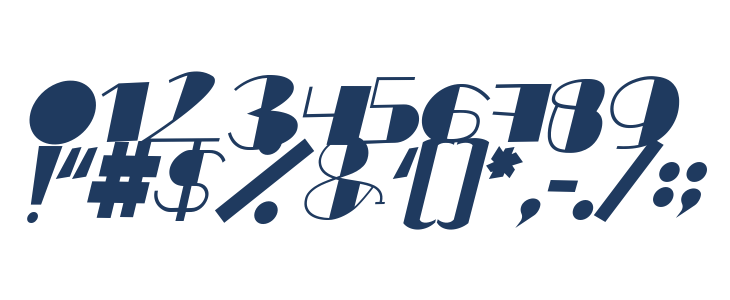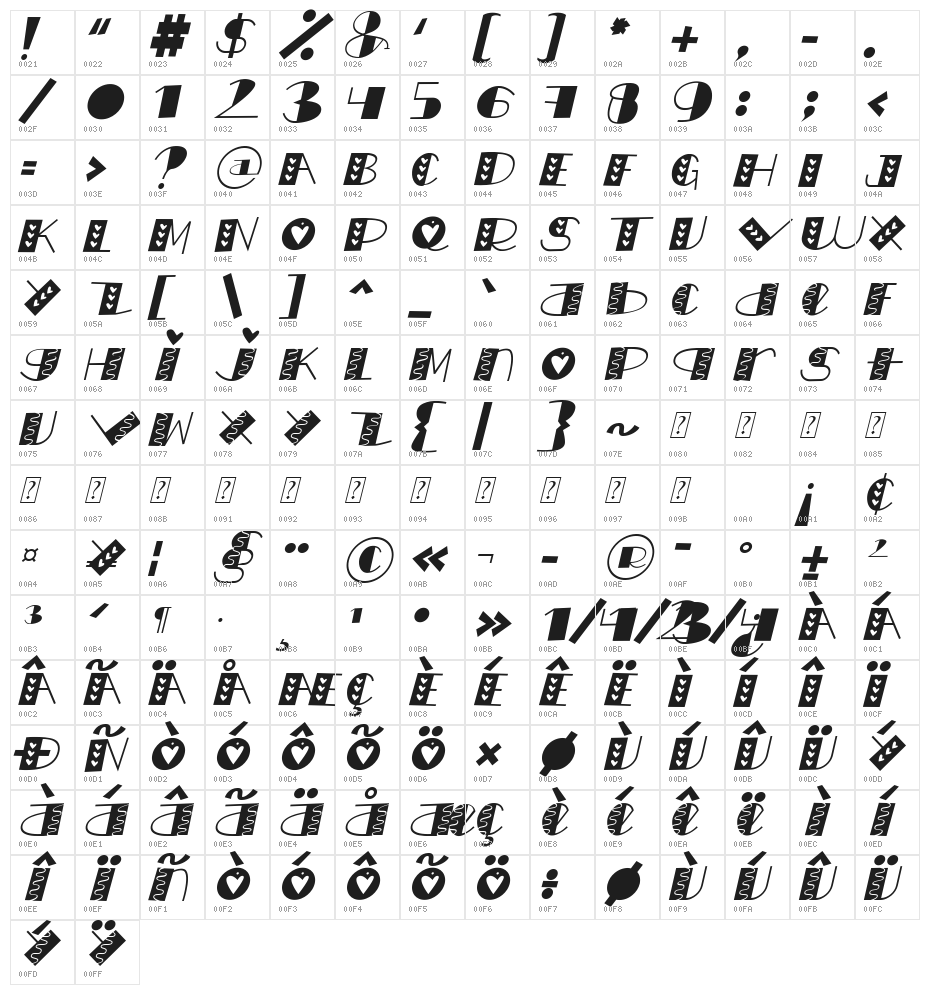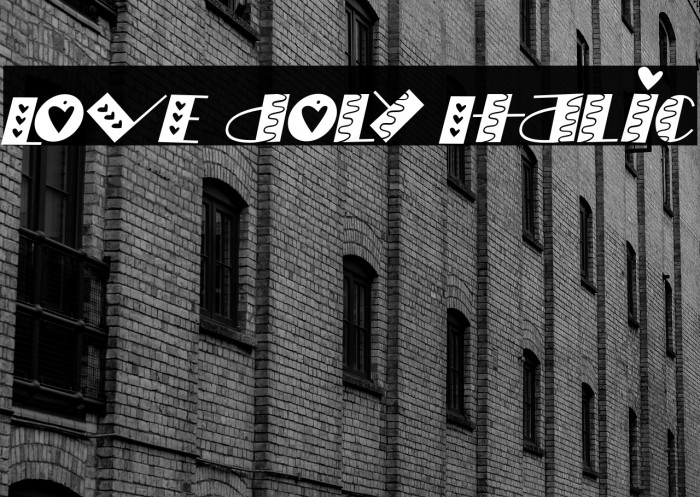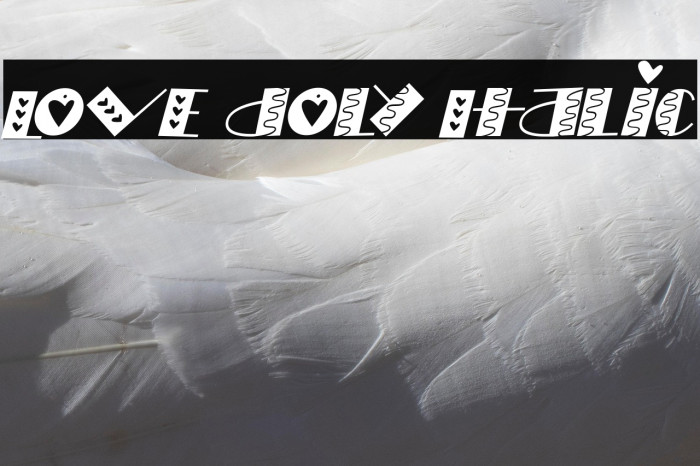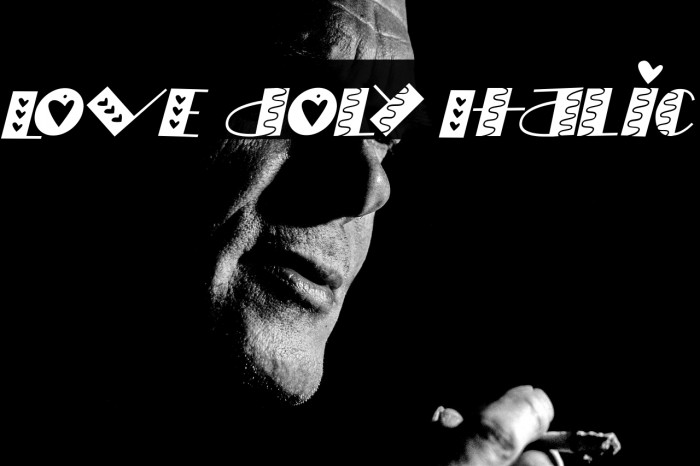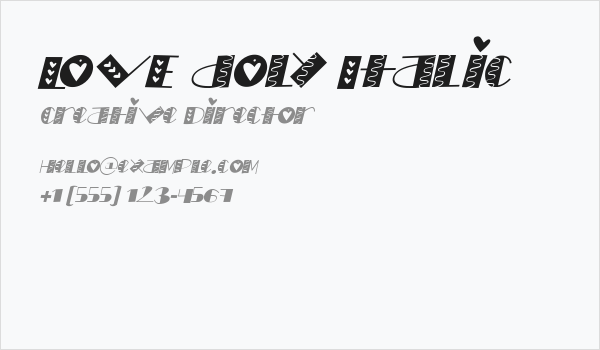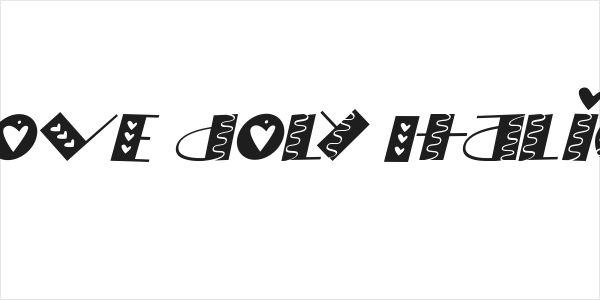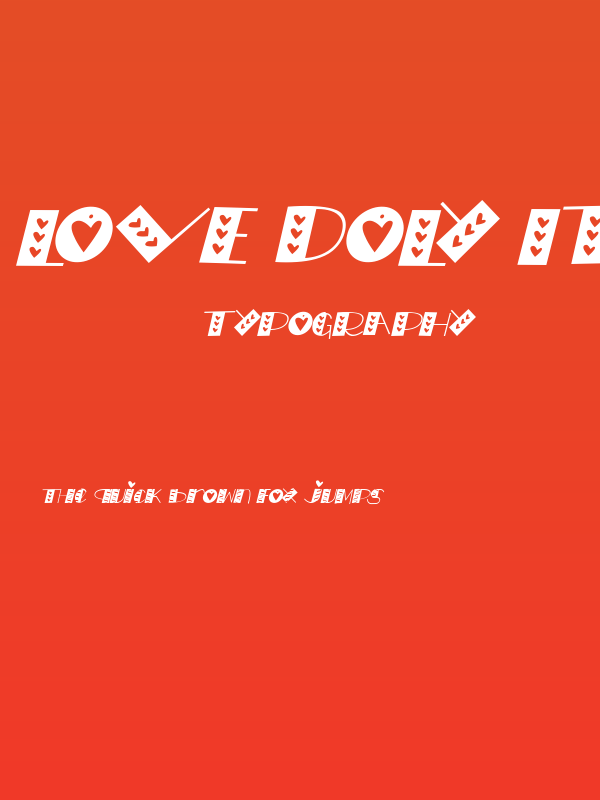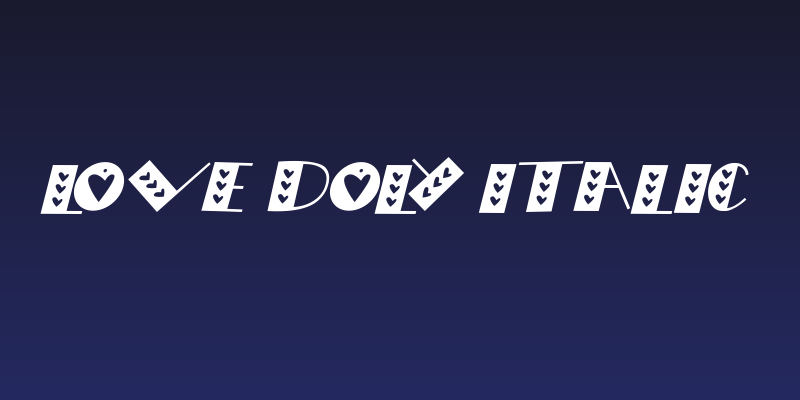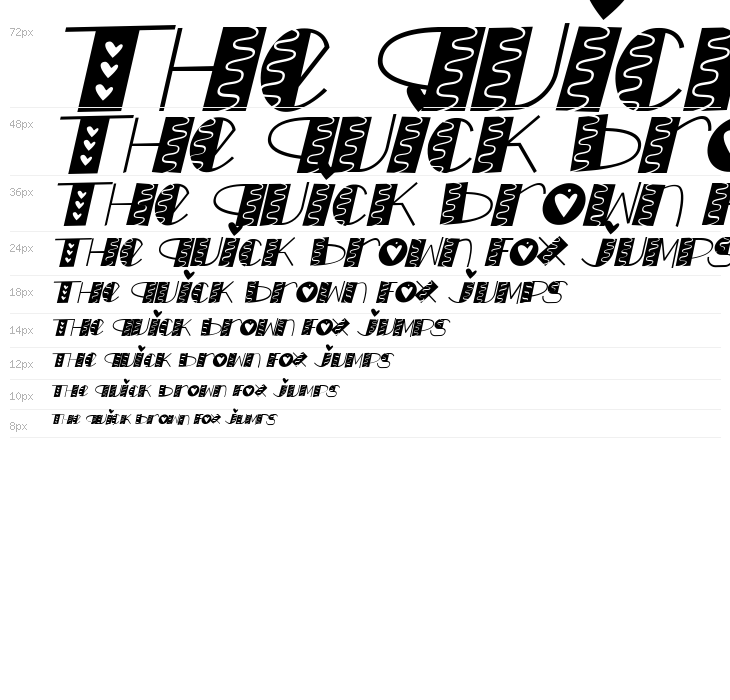
LOVE doly Italic Font
LOVE doly Italic Description
This playful and decorative font features a unique heart motif integrated into the bold, italicized letterforms. Each character is designed with a whimsical touch, making it ideal for projects that require a fun and romantic aesthetic. The uppercase and lowercase letters maintain a consistent style, with the hearts adding a charming detail. The numbers and special characters follow the same playful theme, ensuring a cohesive look across all text elements. This font's distinct style makes it perfect for creative and lighthearted designs.
| Proposed Projects | Ideal for Valentine's Day cards, wedding invitations, playful branding, and romantic-themed posters. |